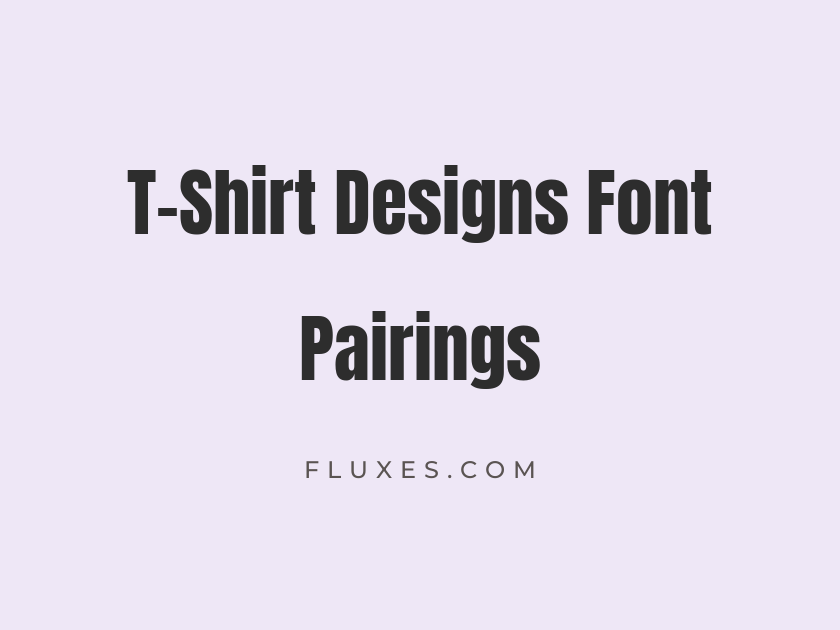
36 Best Font Pairings for T-Shirt Designs
T-shirt graphics live or die by contrast: a heading that reads from across a room, and body copy or a tagline that stays legible after a wash cycle or two. The right Google Fonts pairing can carry a streetwear drop, a band merch table, a race-day tee, or a boutique gift shop rack. What follows is a wide range of combinations built for different tee genres, all free to download and use in production art.
Anton + Work Sans
RIOT SEASON DROP
Limited run, printed in small batches for the city that never sleeps.
Anton’s ultra-condensed weight is built for chest-and-back graphic tees where the headline needs to punch from ten feet away. Work Sans stays neutral and legible underneath it, so care instructions or a tagline never compete with the shout above them.
Bebas Neue + Karla
TRAIN LIKE YOU MEAN IT
Gym-issue cotton, built to survive every set and every wash.
Bebas Neue is a staple of athletic and gym-brand tees because its tall, narrow caps mimic stencil lettering without looking stiff. Karla’s slightly quirky curves keep the supporting line friendly rather than clinical.
Archivo Black + Inter
LESS NOISE MORE SIGNAL
A minimal graphic tee for people who edit everything twice.
For a modern, design-studio graphic tee, Archivo Black’s blunt geometry pairs naturally with Inter, since both were drawn for screens and hold their shape at small sizes on a printed label or tag.
Alfa Slab One + Nunito
HEAVY DUTY GOODS
Est. workwear graphics with a soft, rounded voice underneath.
Alfa Slab One brings the thick, blocky presence of old hardware-store signage, which suits novelty and workwear-inspired tees. Nunito’s rounded terminals soften that heaviness so the pairing doesn’t feel aggressive.
Bungee + Rubik
STREET LEVEL VOLUME
Hand-sprayed lettering energy, printed clean for everyday wear.
Bungee was designed with urban signage in mind, and it translates directly to graffiti-adjacent streetwear graphics. Rubik’s slightly rounded corners echo that playful, sign-painted feel without turning into a second display font.
Luckiest Guy + Quicksand
SNACK BAR CHAMPION
A goofy graphic tee made for kids and grown-up kids alike.
Luckiest Guy has the bounce of a cartoon logo, ideal for novelty and kids’ tee designs. Quicksand keeps the same rounded, friendly geometry at a much quieter volume, so the pair reads as one cohesive cartoon world.
Permanent Marker + Open Sans
SKATE OR DON'T
Scrawled on a board, printed on a shirt, worn until it fades.
Permanent Marker looks genuinely scrawled with a felt-tip pen, which gives skate and DIY tee graphics their rebellious edge. Open Sans underneath keeps any fine print calm and readable, letting the marker lettering stay the star.
Bangers + Poppins
KAPOW GRAPHIC TEE
Comic-book energy on a soft ringspun cotton canvas.
Bangers is built from comic-book lettering conventions, all jagged edges and shout, so it suits pop-art and parody graphic tees especially well. Poppins, geometric and even, keeps the supporting text from fighting that visual noise.
Righteous + Lato
ANALOG DREAMS TOUR
A retro-futuristic band tee for a synth revival tour.
Righteous has a retro-futuristic curve reminiscent of 70s and 80s signage, which makes it a natural for band merch and tour tees chasing that nostalgic feel. Lato’s warmth keeps the pairing approachable rather than kitsch.
Passion One + PT Sans
SAY IT LOUDER
A slogan tee for people who don't do subtle.
Passion One’s rounded, heavyweight caps were made for bold statement tees and slogan graphics where the message is the entire design. PT Sans is plain enough to disappear into a small print line without distracting from that message.
Staatliches + Barlow
VARSITY NO. 09
Condensed team lettering for jerseys, tees, and locker room banners.
Staatliches was drawn with stencil and jersey lettering in mind, so it slots neatly into sports and team-branded tee designs. Barlow shares that condensed, industrial proportion at a lower weight, so the two feel like one type family even though they’re not.
Teko + Mulish
MATCH DAY READY
Official gear for the squad, printed for every home game.
Teko’s tall, narrow letterforms come from Indian display typography and carry an athletic, scoreboard energy that suits team tees and event merchandise. Mulish is neutral and compact enough to sit under it without adding competing personality.
Fjalla One + Source Sans 3
FORM FOLLOWS FUNCTION
A minimal typographic tee built on a strict grid.
Fjalla One’s tight spacing and confident weight work well for minimal, type-only graphic tees where the whole design is a single line of text. Source Sans 3’s restrained, workmanlike shapes keep the piece feeling designed rather than decorated.
Oswald + Roboto
EST. HOMETOWN 1998
Classic varsity styling for a shirt that never goes out of rotation.
Tips for pairing fonts on t-shirts
Keep the display font bold and simple at small sizes; intricate detail in a script or slab often clogs up in screen printing or vinyl cutting.
Limit a design to two typefaces total. A third font usually adds confusion rather than personality, especially on a small chest print.
Test contrast in black and white before committing to color. If the heading and body still read clearly without color to separate them, the pairing is doing its job.